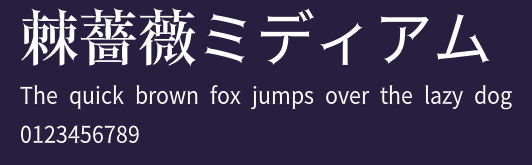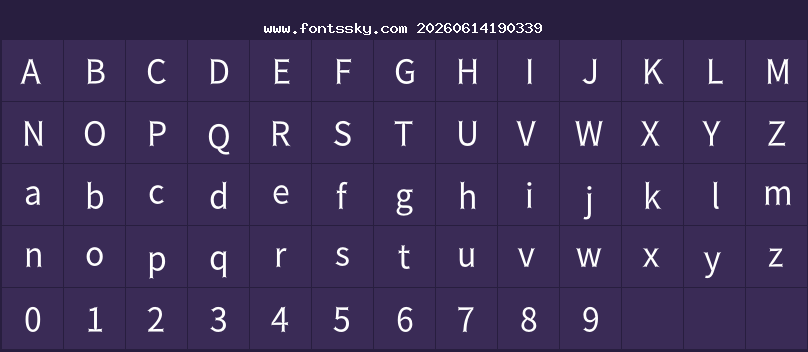
棘薔薇ミディアム Preview
• Font Name: 棘薔薇ミディアム
• Font ID: 棘薔薇ミディアム
• Full Font Name: 棘薔薇ミディアム
• PostScript Name: TogebaraMedium
• Character Count: 8310
About 棘薔薇ミディアム.otf
棘薔薇ミディアム.otf is a modern, elegant sans-serif font designed for ultimate readability and visual harmony. Perfect for branding, headlines, web design, and print materials.